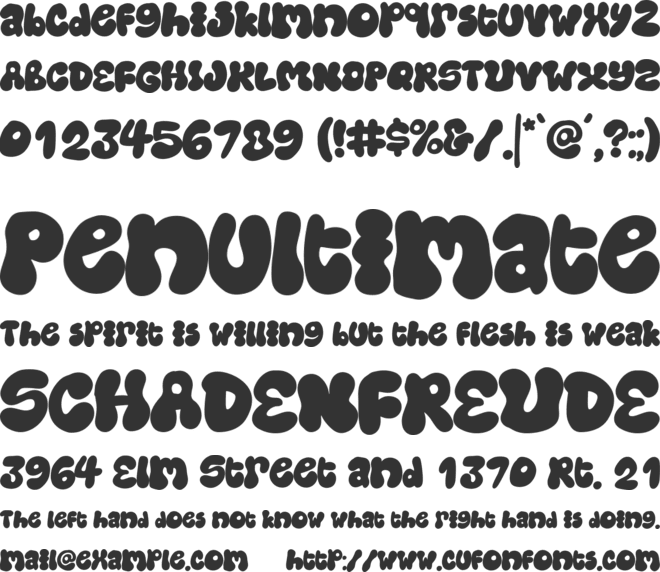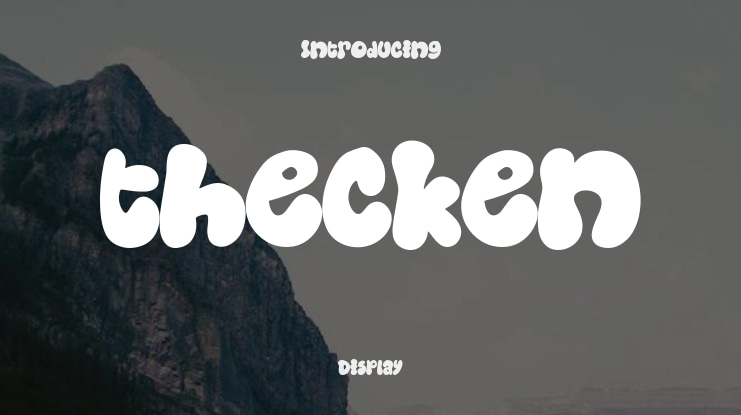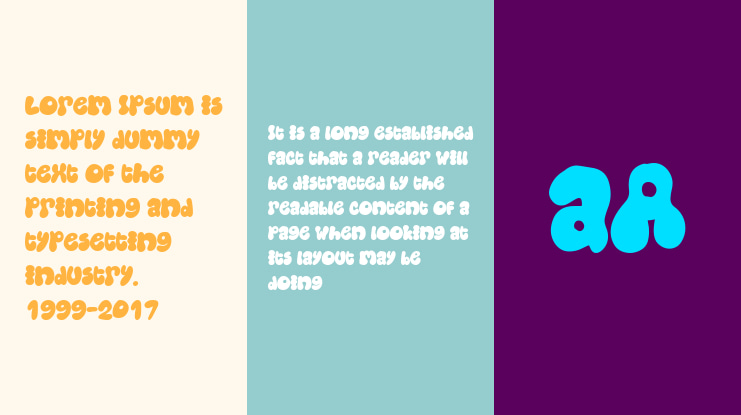
thecken Font Family
Introducing Thecken Bold Bubble Font, a striking and unique typeface that combines playful, bubble-like roundness with the raw, industrial aesthetic of brutalism. Perfect for projects that need a bold, eye-catching look, this font is ideal for headlines, logos, posters, and modern designs that make a statement. The Thecken Font features thick, rounded letters with exaggerated curves that evoke a sense of fun and boldness, while the strong, geometric shapes provide a solid, almost architectural presence. Whether you're designing for a creative brand, a street art project, or a futuristic look, this font brings together the best of both worlds—playful and rugged. Stand out with Thecken Bold Bubble Font and add a touch of rebellious flair to your designs!